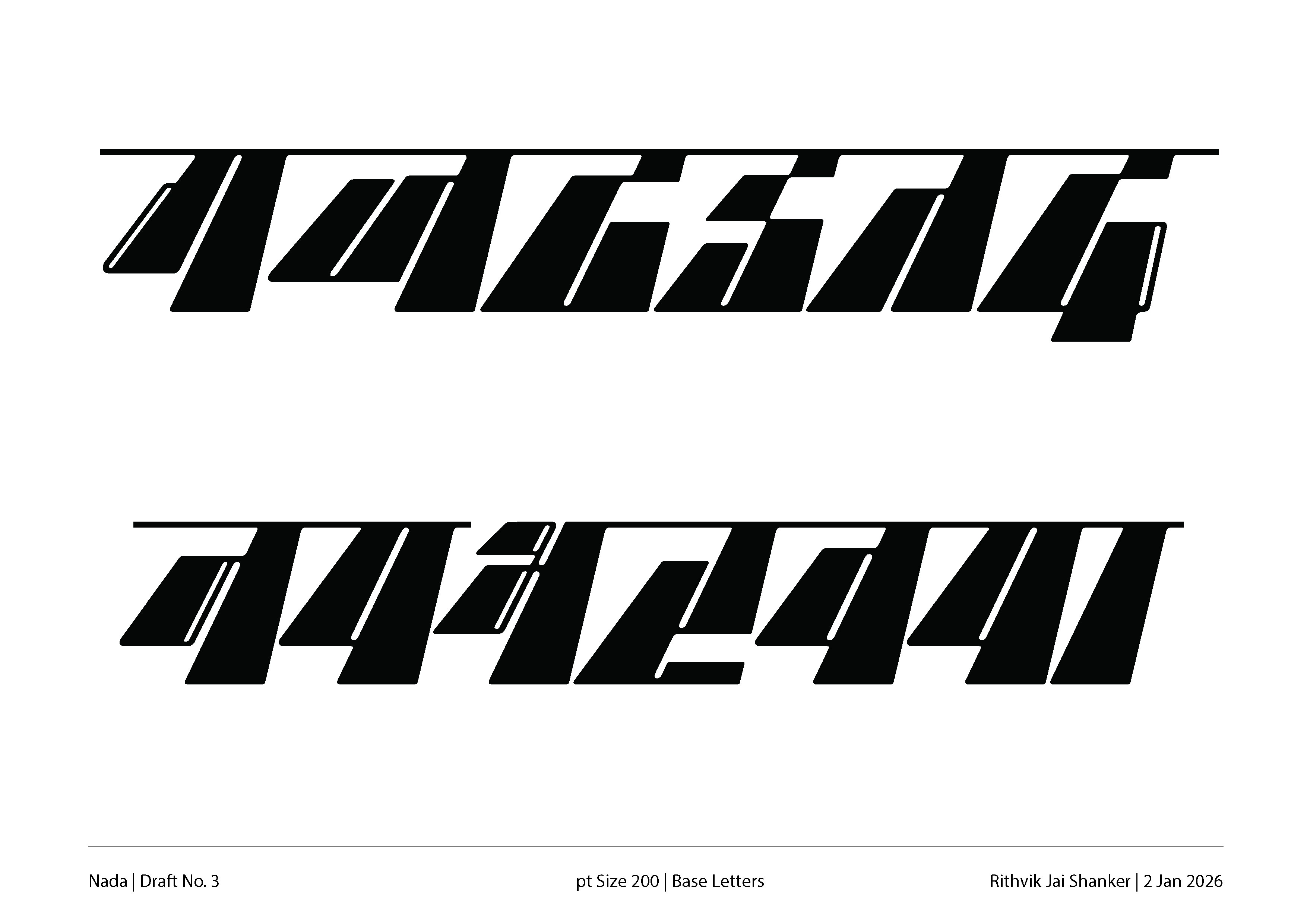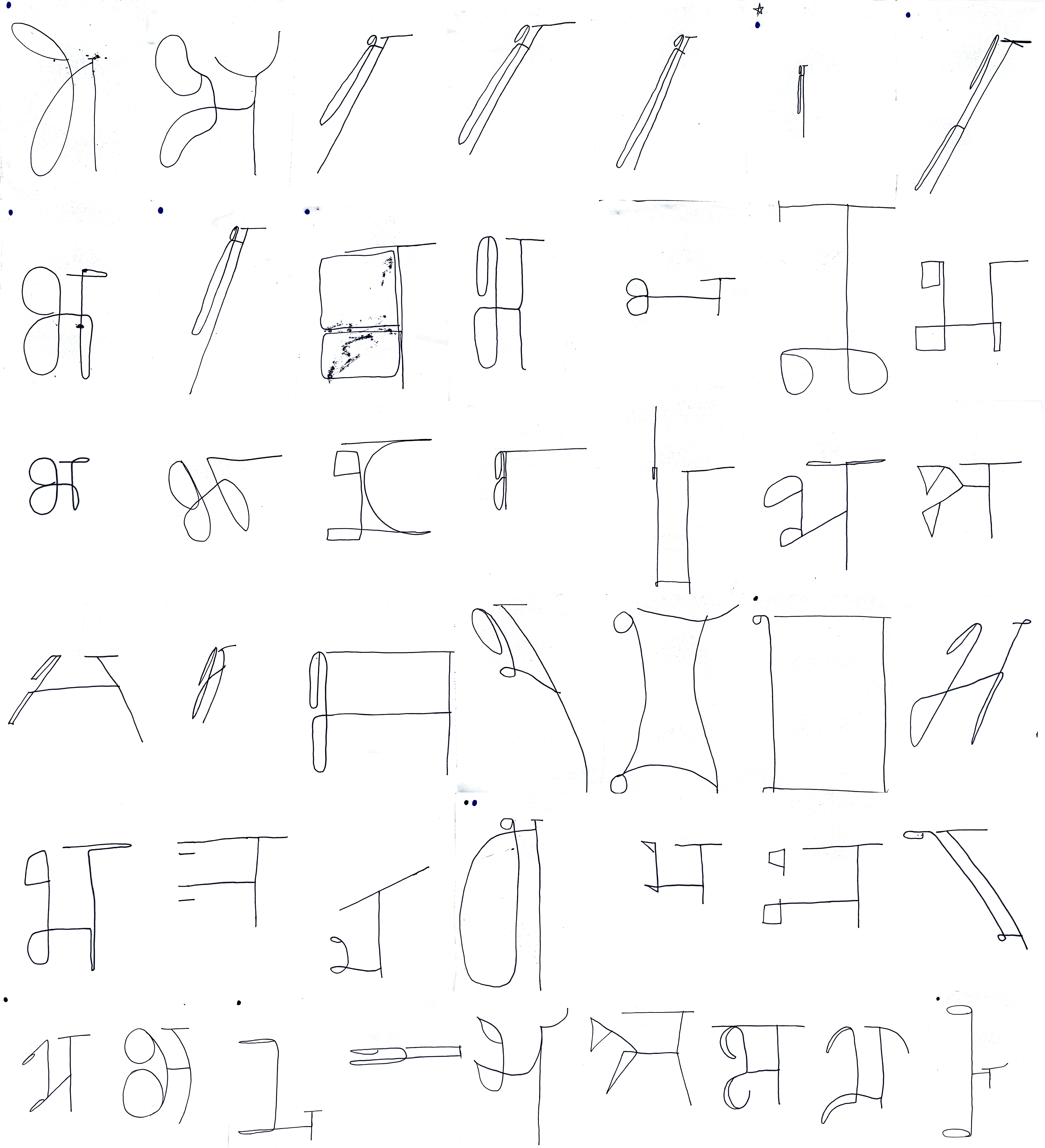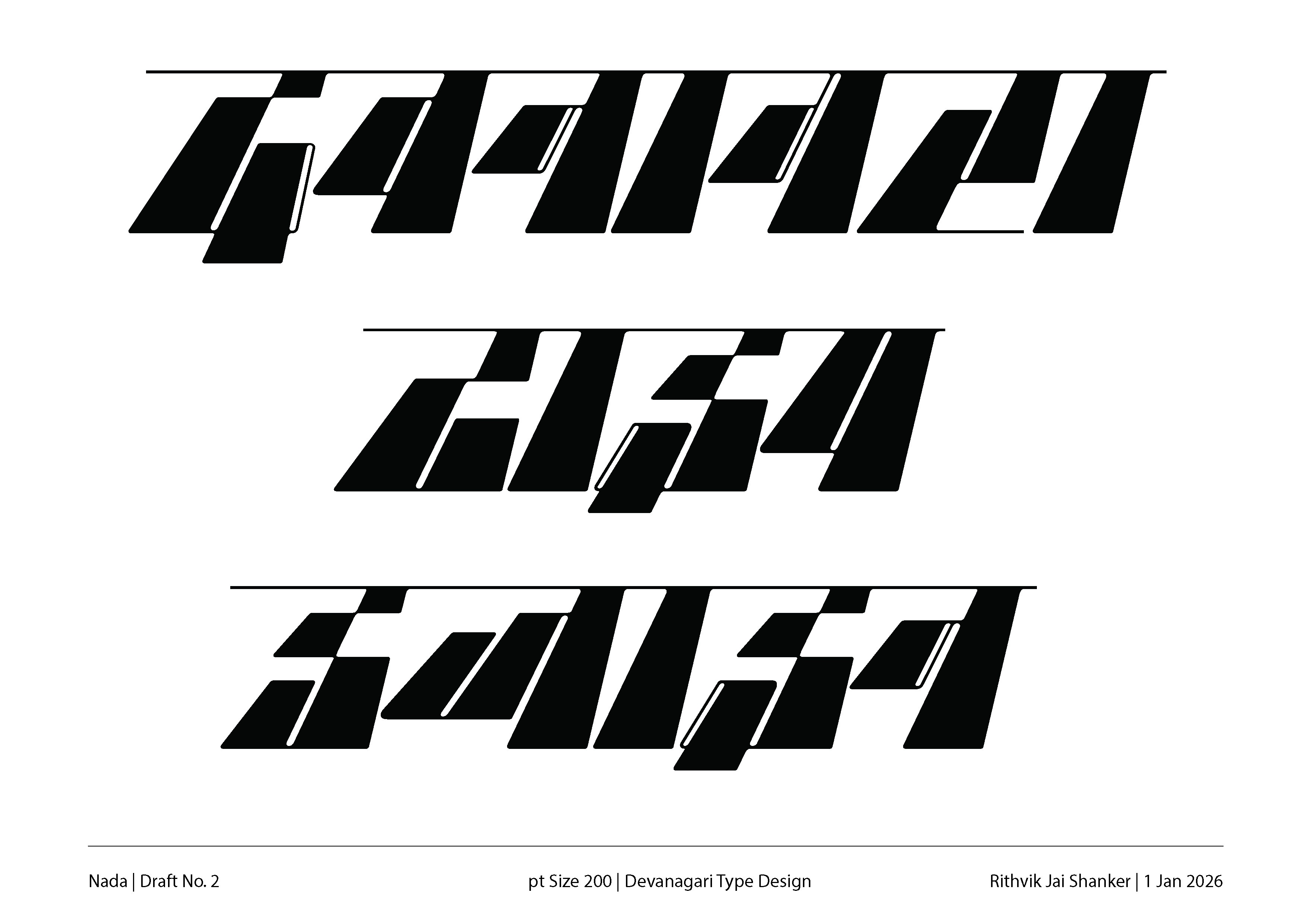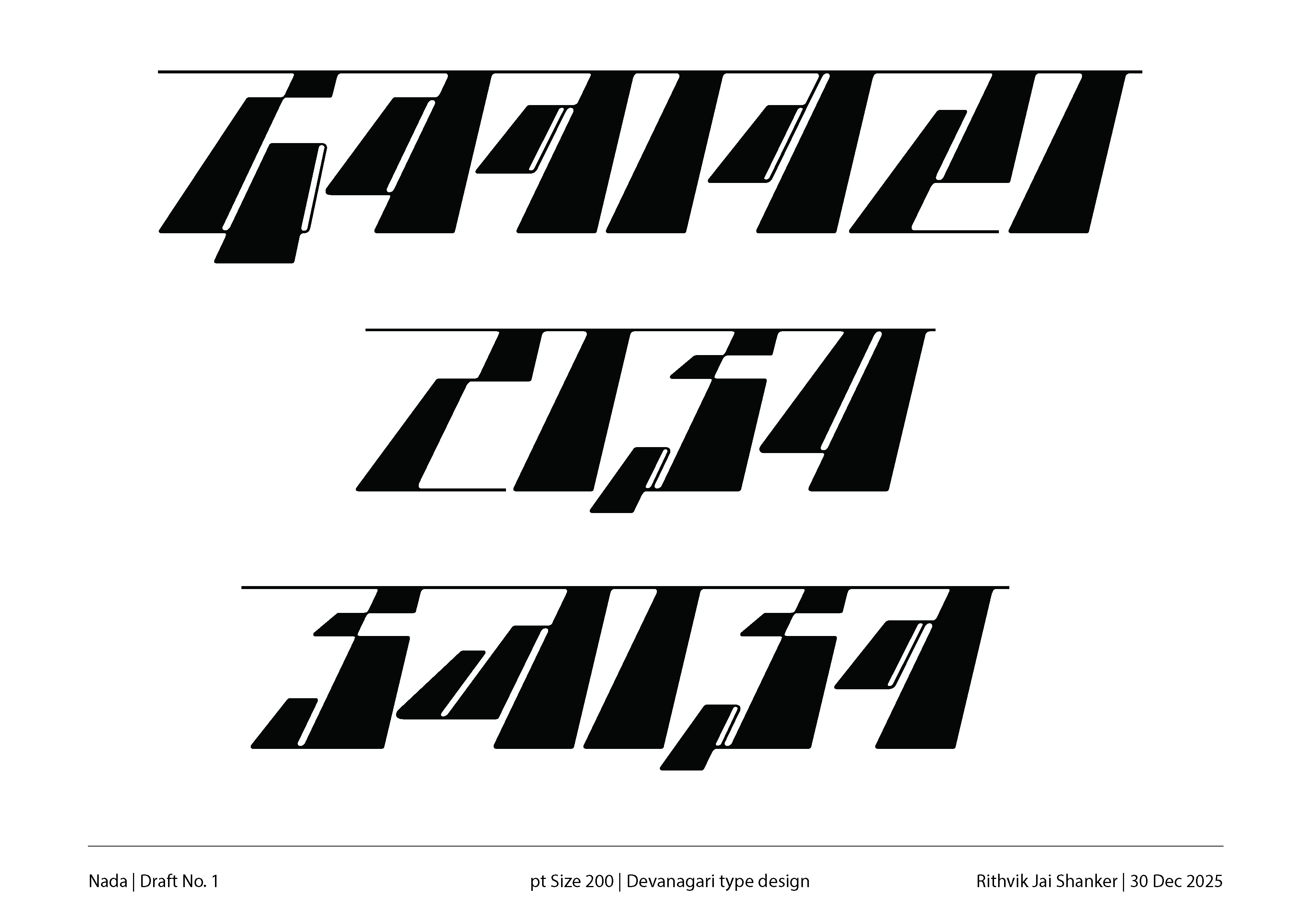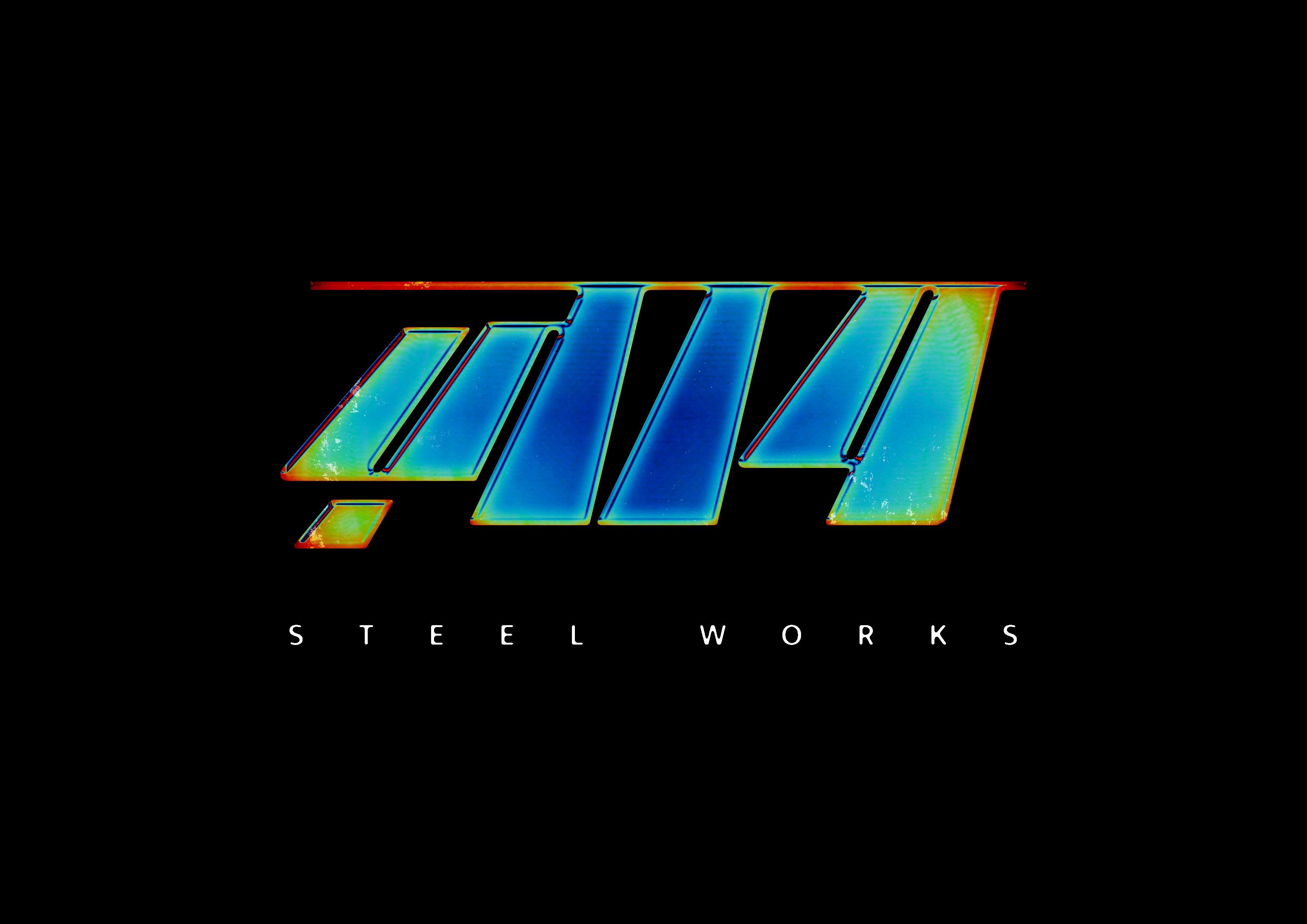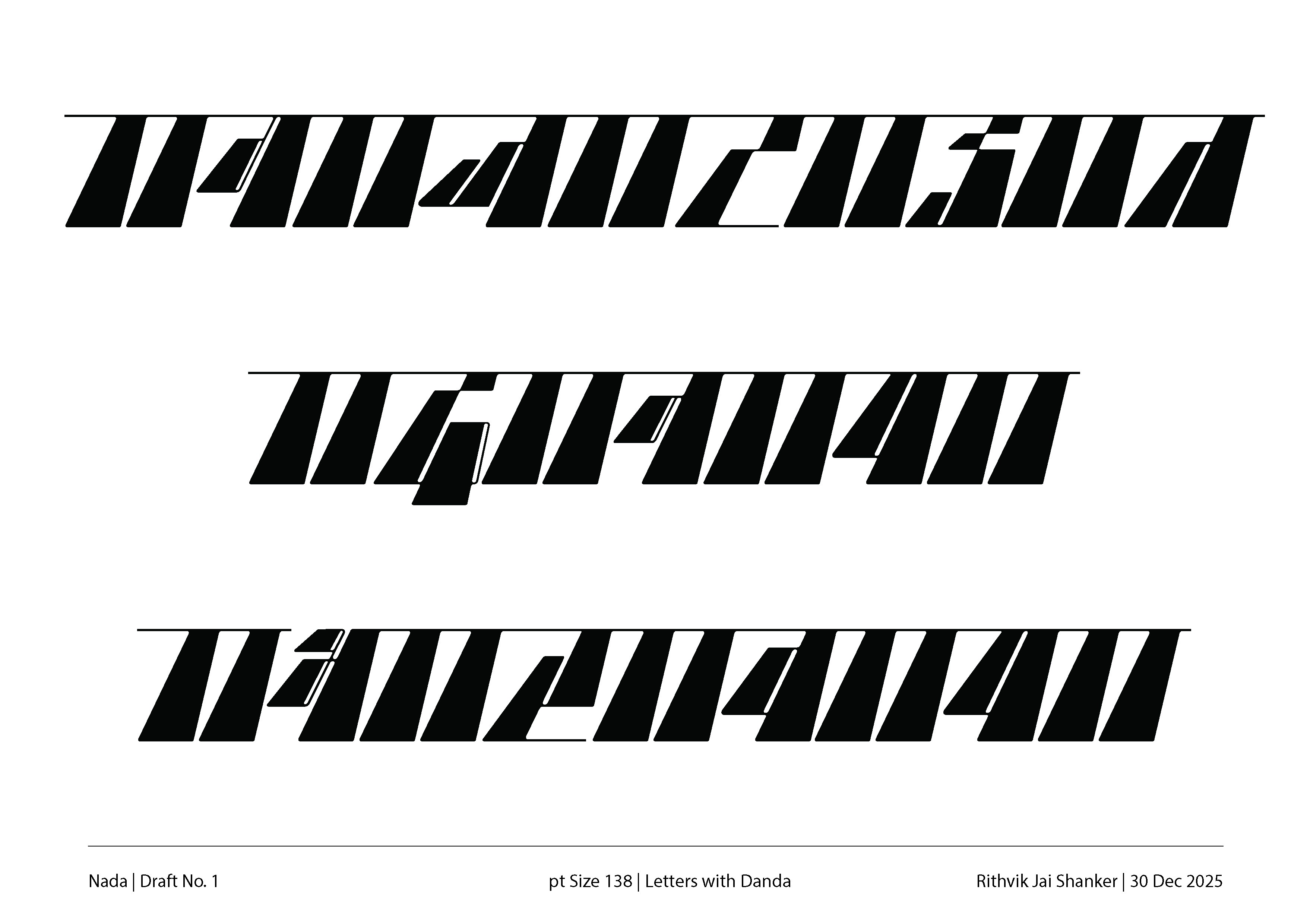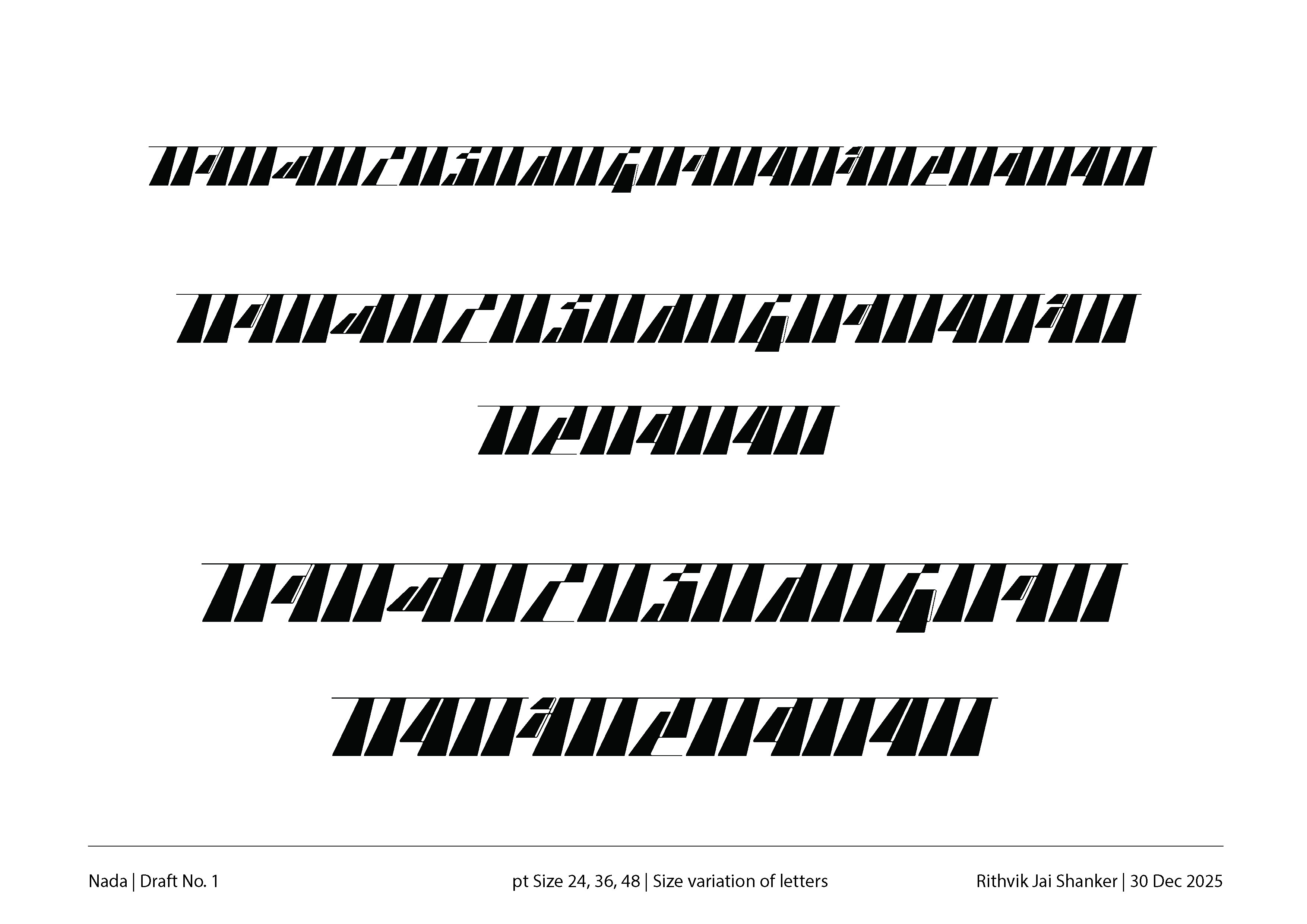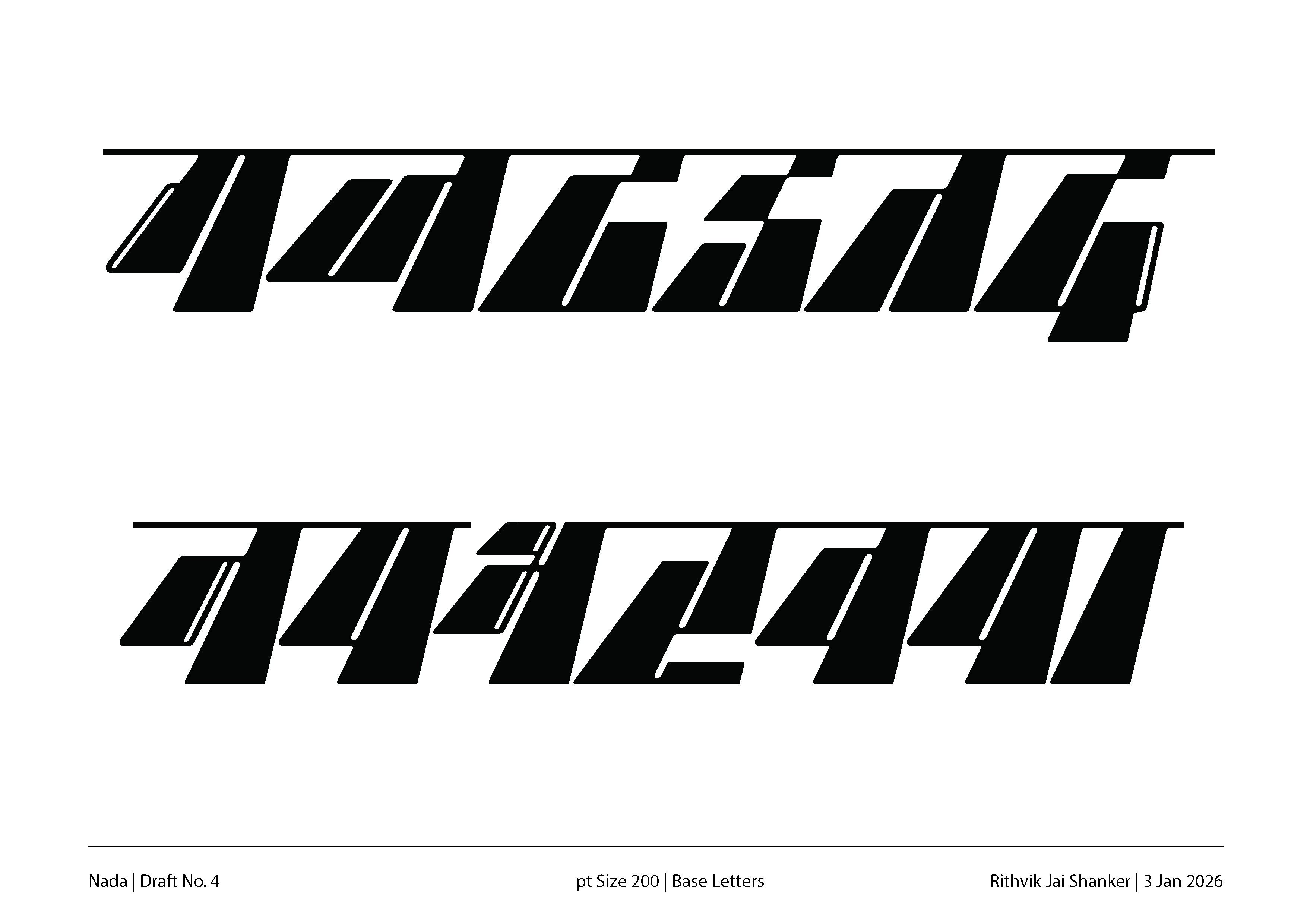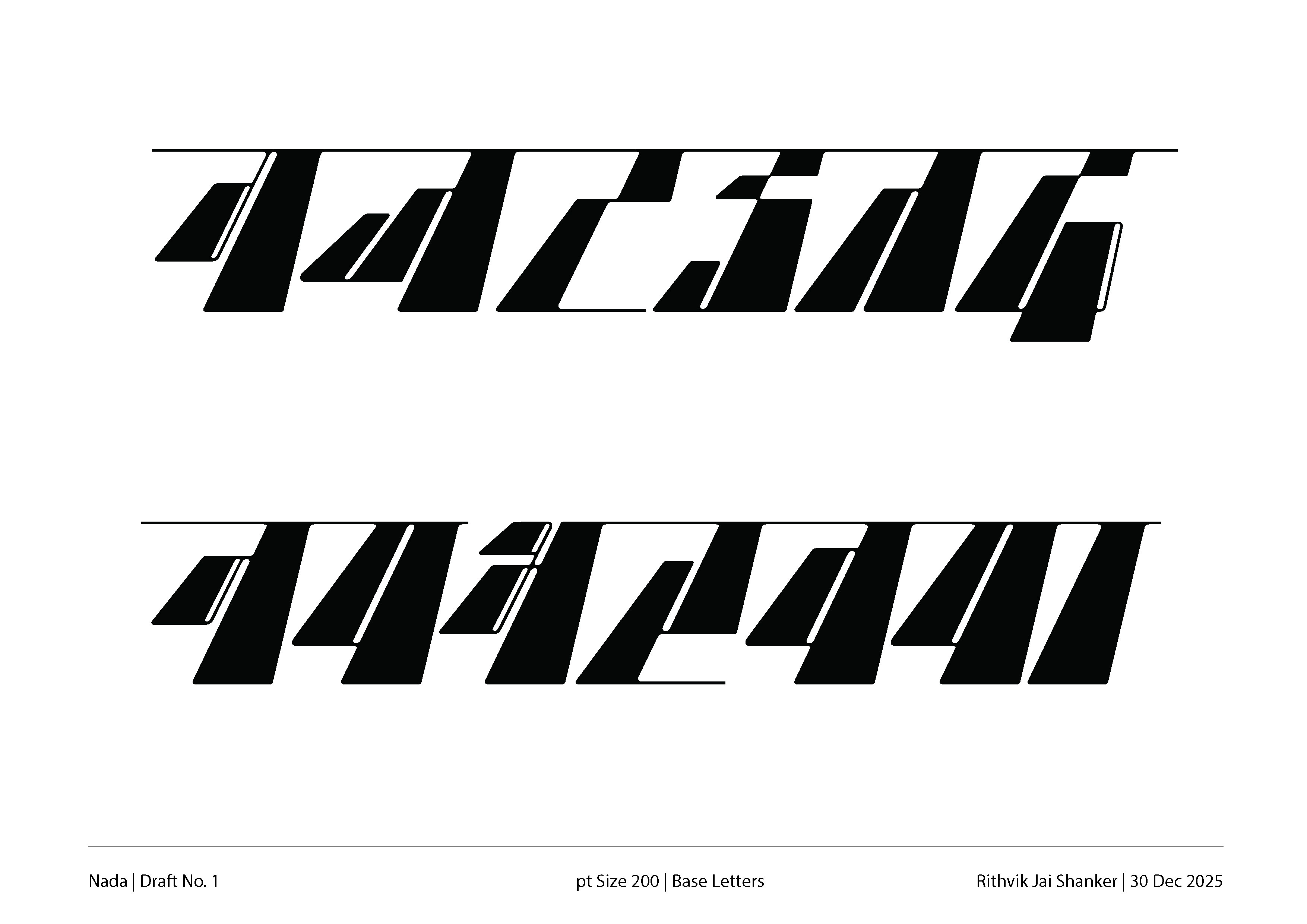
Devanagari Type Design
Font Name - NADA
This is my first time exploring type design in such detail. We had a timeframe of 2 weeks to design a typeface from scratch in devanagari script. The process began with lettering explorations (skeleton and flesh) for a chosen letter. The finalised design was then taken forward and 12 characters along with 4 matras were designed and digitised.
Skeleton Explorations
These explorations were done over 3 rounds. Each round was 10 mins each. Post each round, the skeletons were placed and similar looking designs were grouped together. Everything was analysed to understand what styles have been tried, what hasn't and what can be done. This was done as part of a group so I had the opportunity to take a look at other designs for inspiration.
Chosen skeletons to move forward with flesh exploration
Flesh Explorations
A variety of tools were used to explore flesh from bamboo devanagari tools to different types of markers. There is a lot of play between thicknesses, proportions and size of strokes. These variations can alter the skeletons look completely leading to very interesting designs.
Selected design
Refining & designing other letters
The next step involves using the similar style and designing other letters of the script.
Using Glyphs 3 to digitise the typeface
There were many drafts and iterations done to each letter post digitising. This is to ensure proper spacing and structure with every possible combination of letters placed beside each other. It also depends on words and its length. There are some minor and some major changes between drafts. Some tests and sheets are shown below.
Drafts 1 - 4
The process was followed to design 10 letters of the devanagari script.